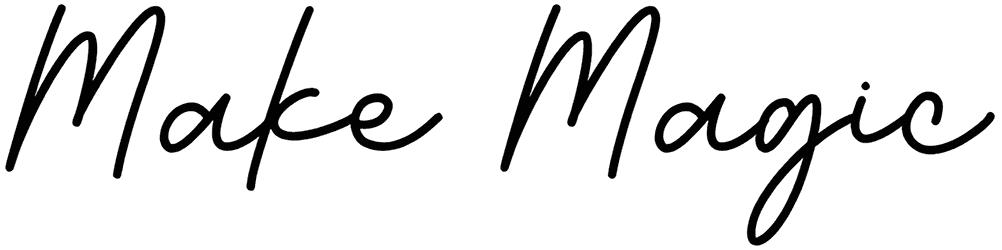
Make Magic font is a handwritten font. In fact, you will be able to make magic in the audience’s feelings with this font. Your cosmetic products will sparkle in packaging with this font title.
The dance of letters on paper is likely to be seductive. Since it seems simple but peerless. It should be utilized in calligraphy, hand-lettering, branding, posters, invitation cards, etc. Albeit it must not be easy to read.